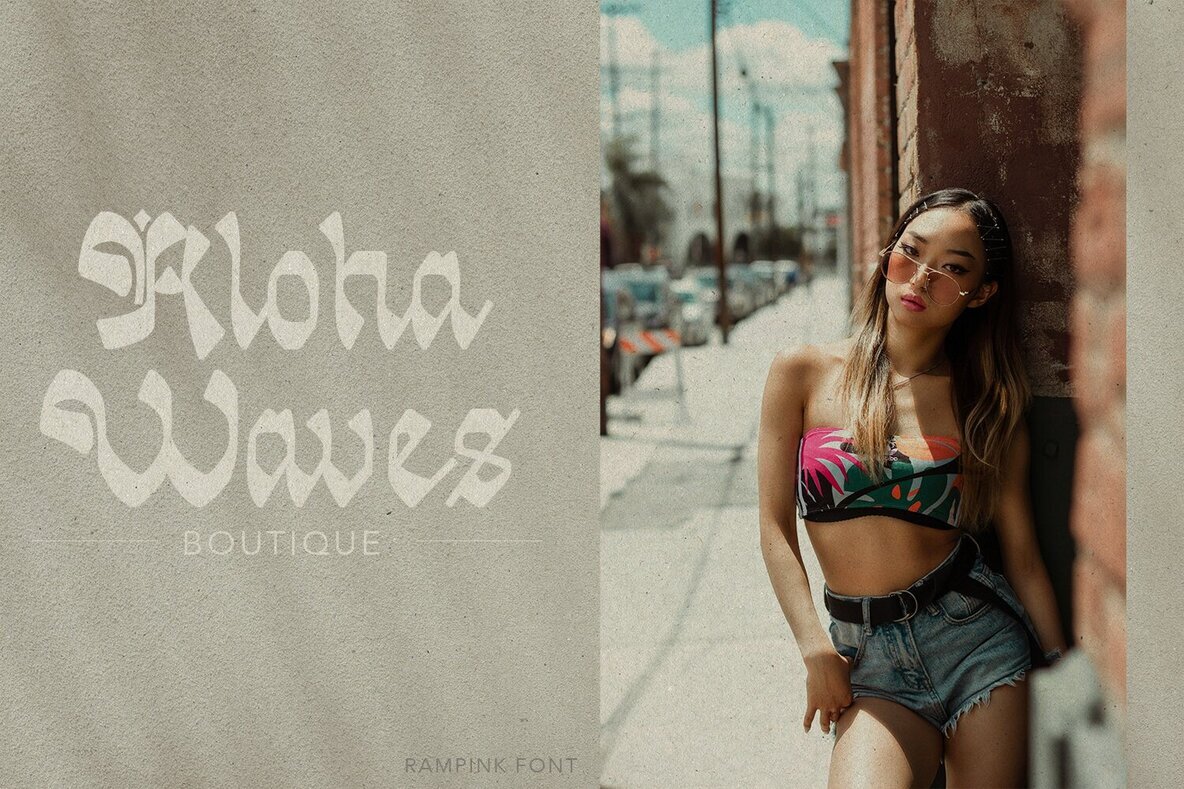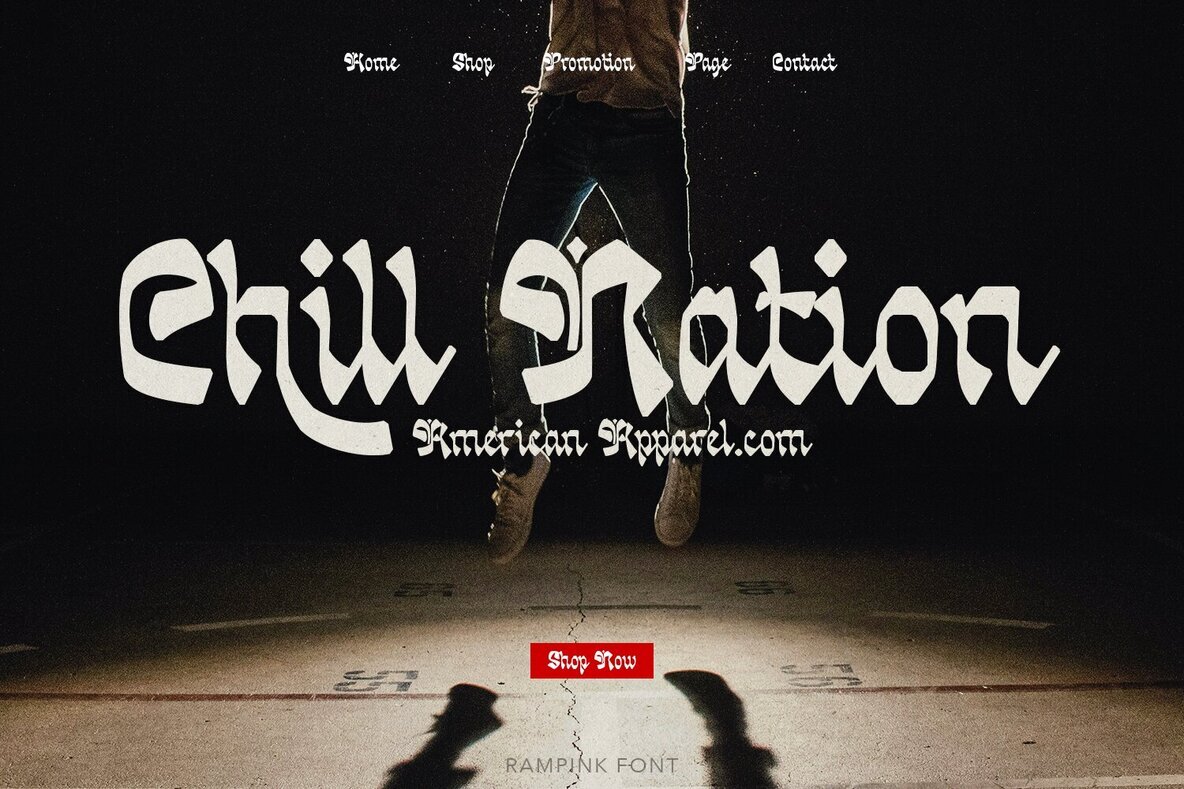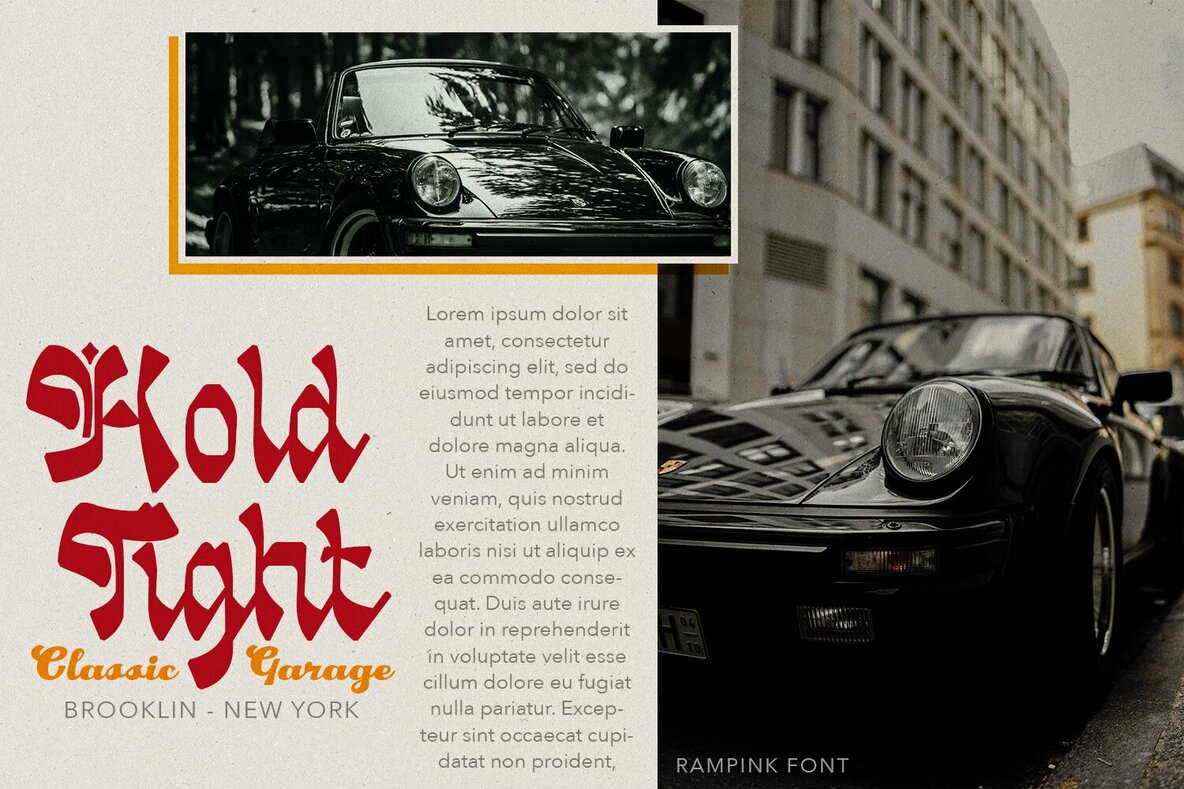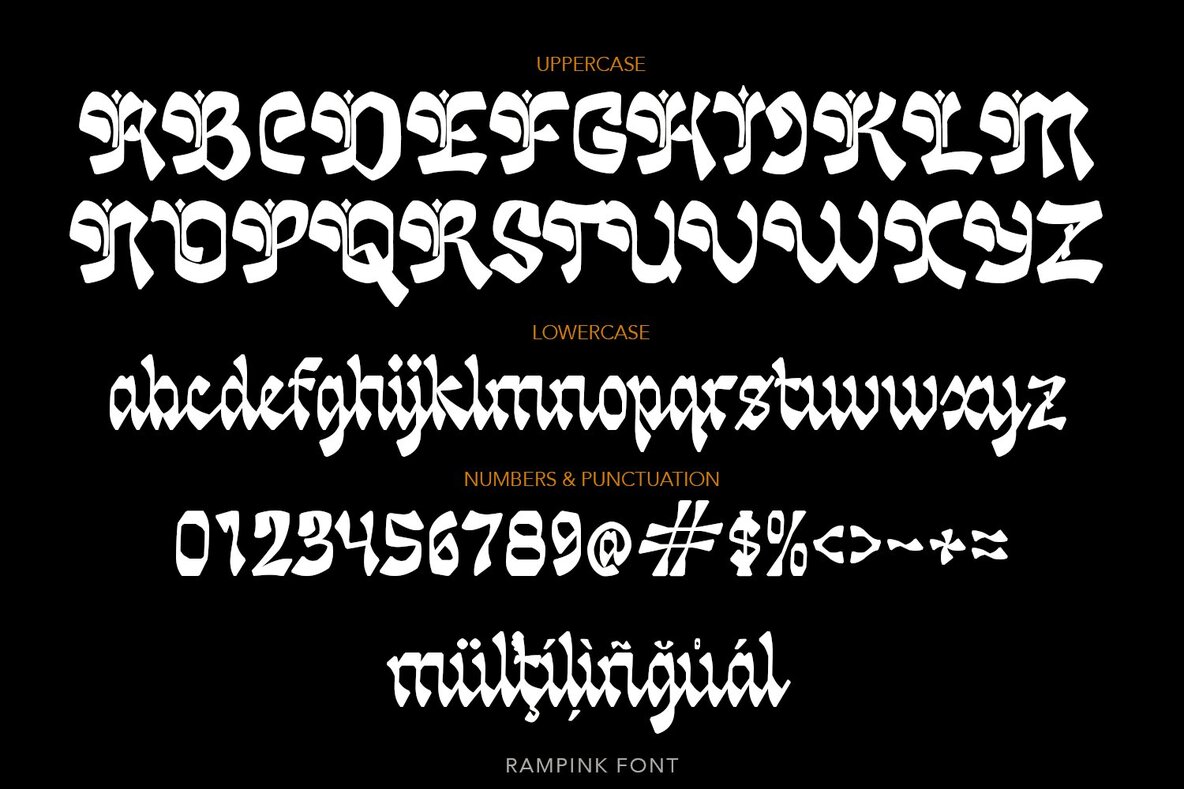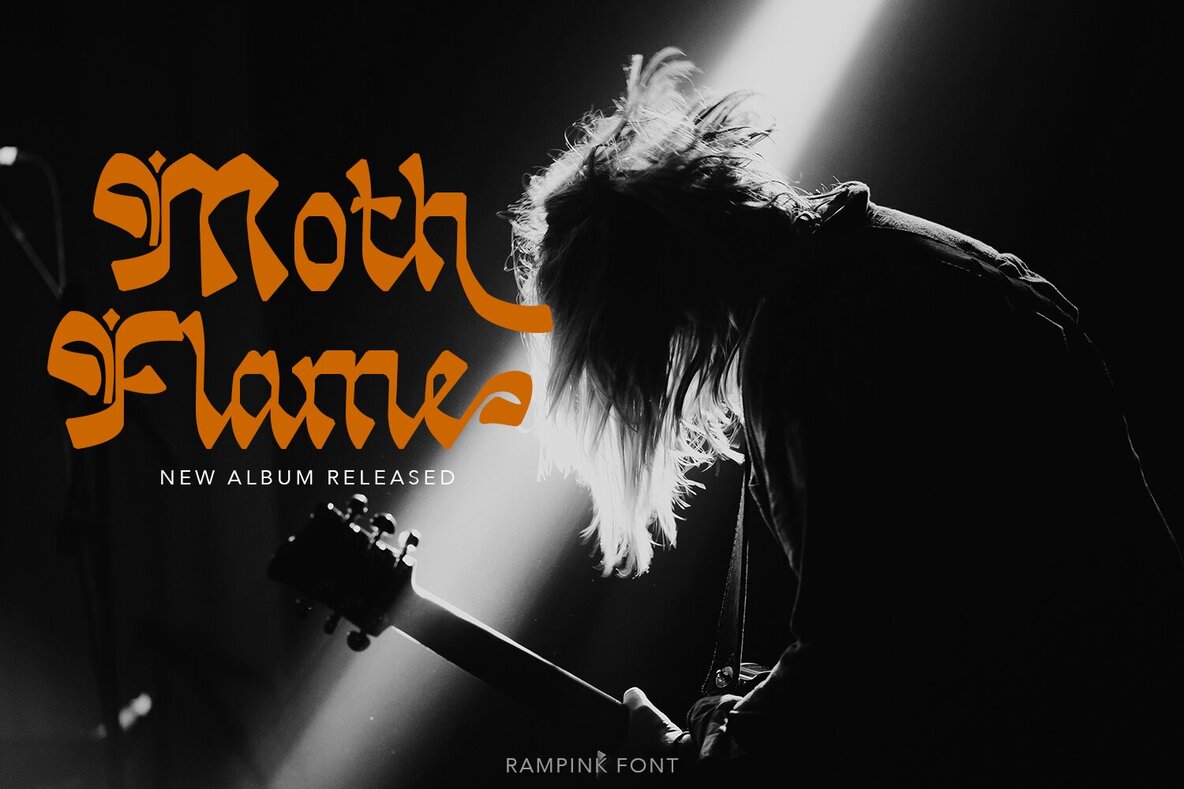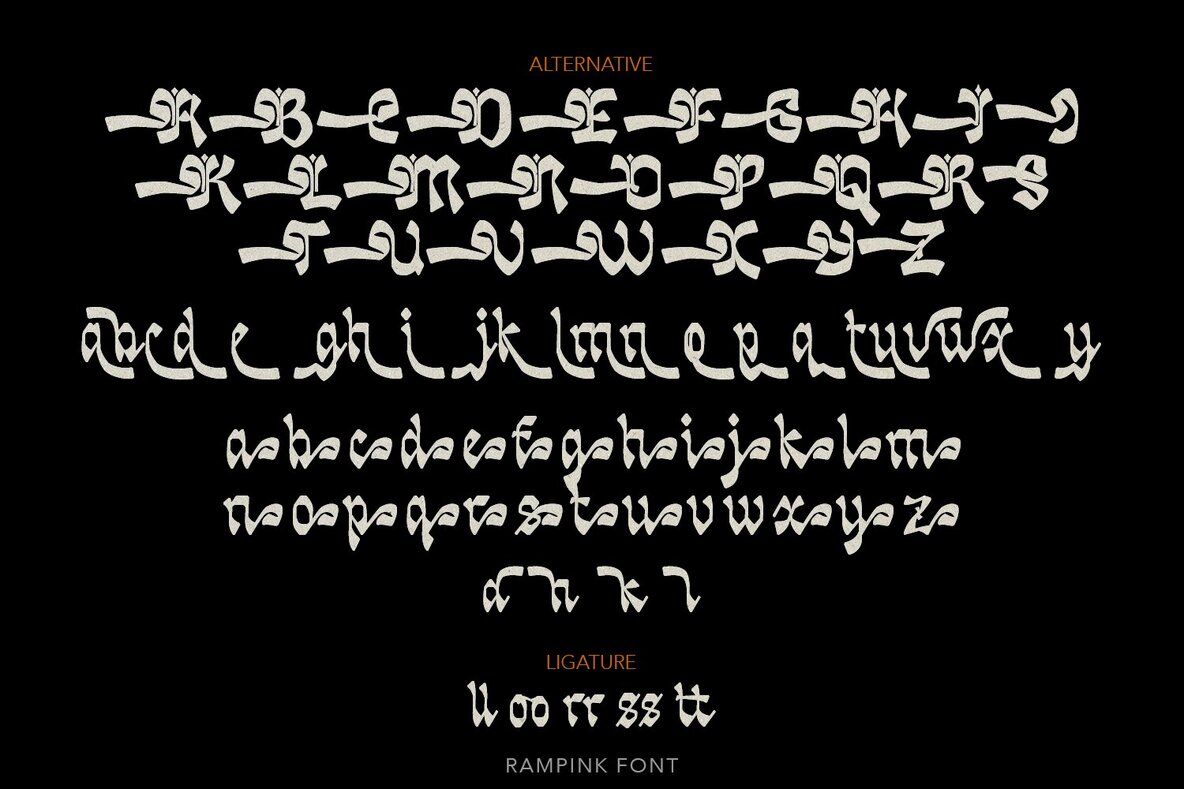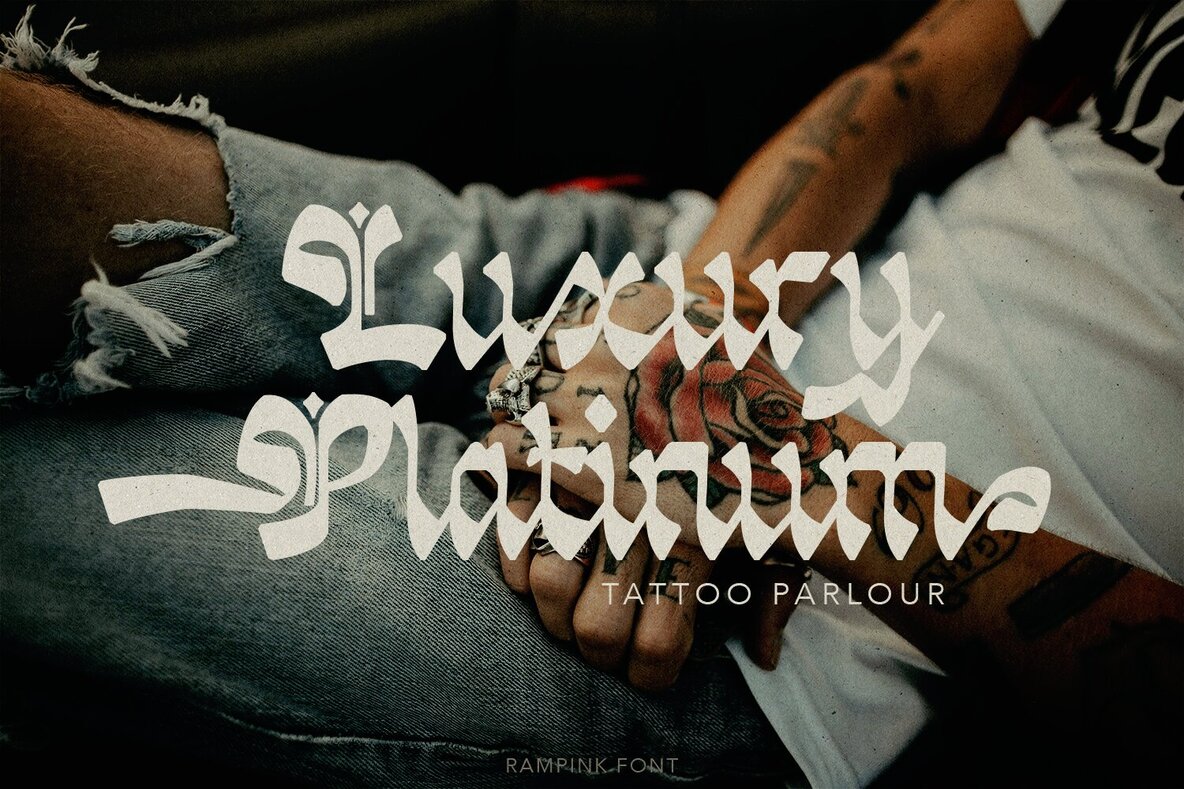
Rampink Font
Rampink Regular
Really excited to introduce Rampink is a modern blackletter font, made with a stylish impression and supported by alternative with references to various letters that I combine. Suitable to create any branding, product packaging, invitation, quotes, t-shirt, label, poster, logo etc.